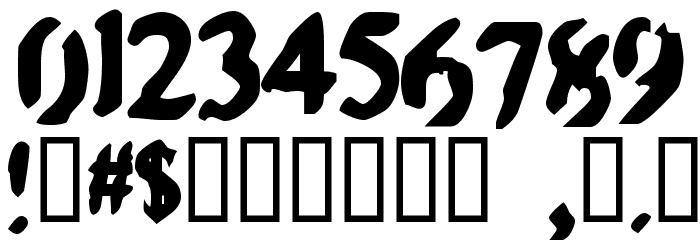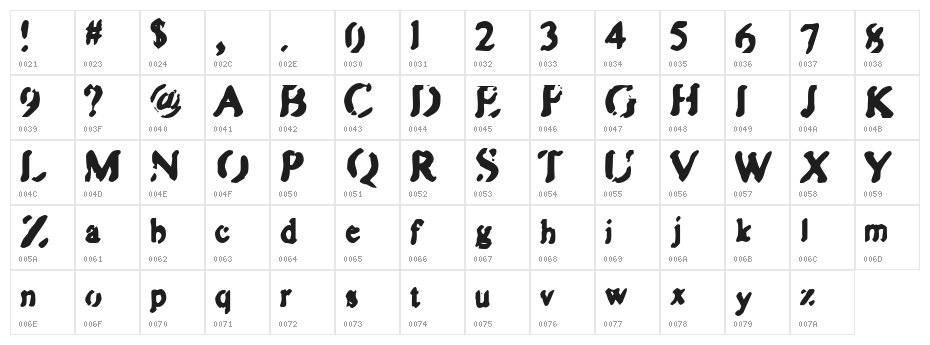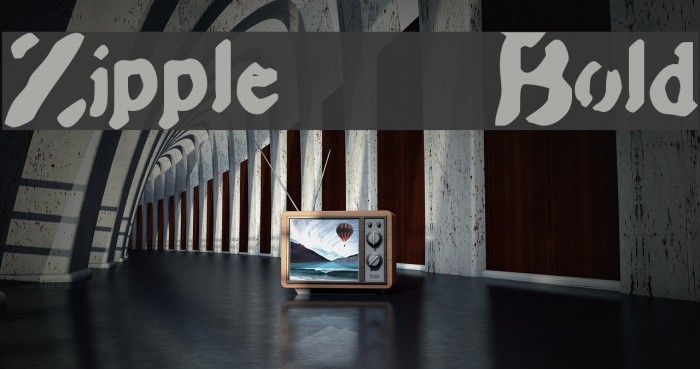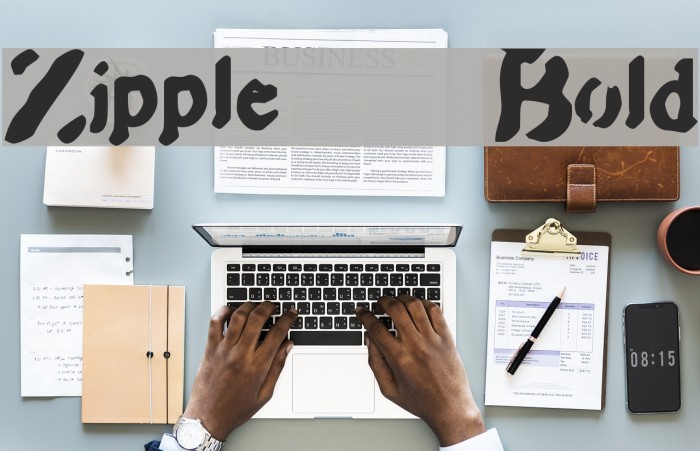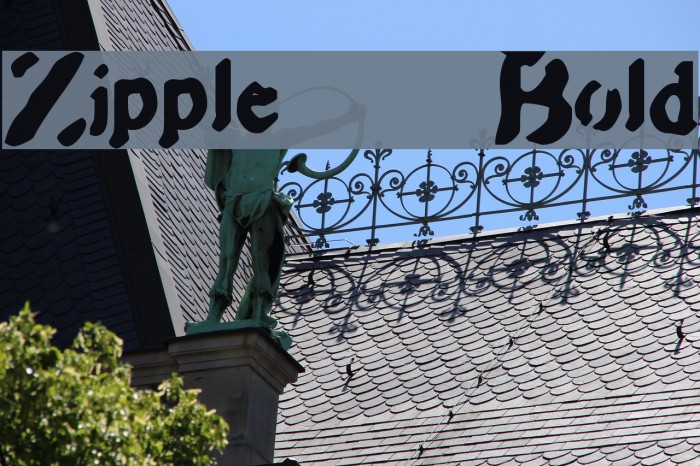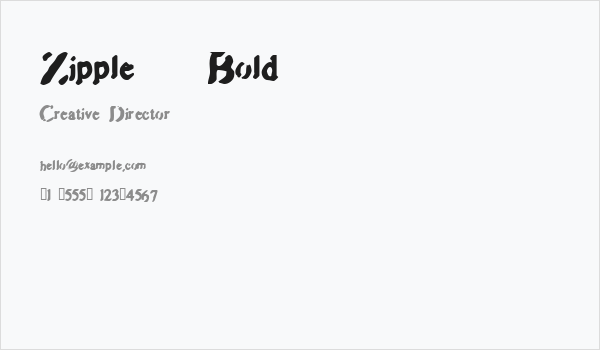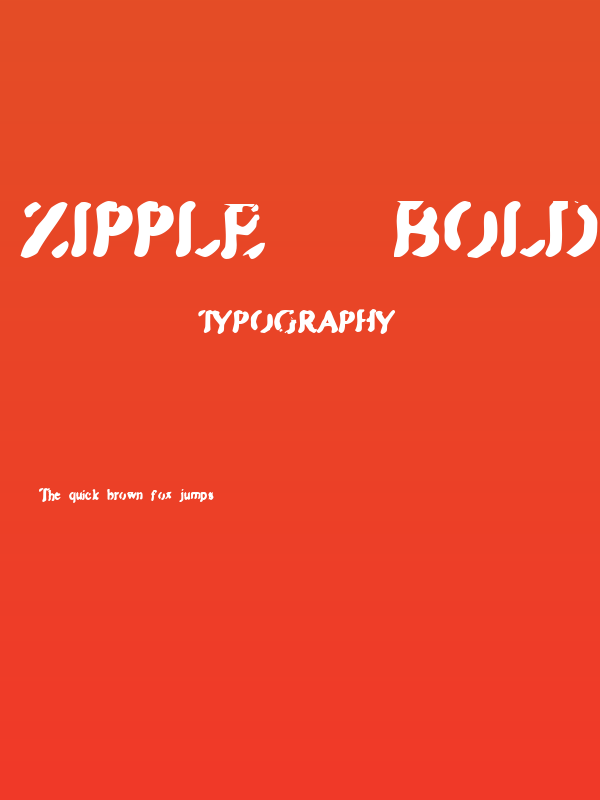
Zipple Bold Font
Zipple Bold Description
This font features a bold and dynamic style with a distinct, jagged edge that gives it a unique and eye-catching appearance. The characters are heavily stylized, with irregular shapes and sharp angles that create a sense of movement and energy. The uppercase and lowercase letters maintain a consistent design, while the numbers and special characters complement the overall aesthetic. This font's boldness makes it stand out, making it suitable for projects that require a strong visual impact.
| Proposed Projects | Ideal for posters, album covers, branding, and any design needing a bold statement. |